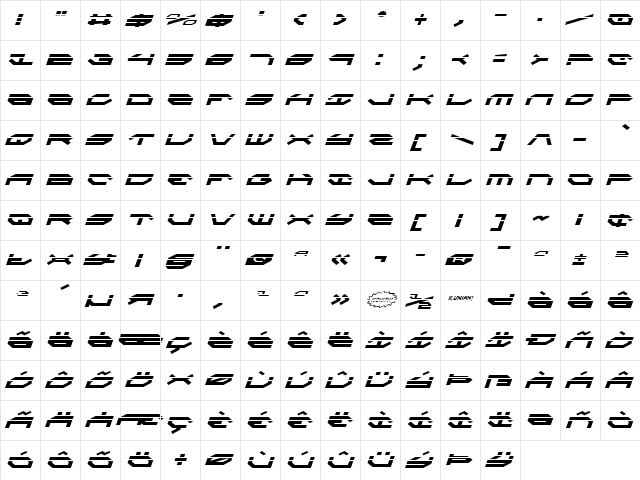
Taskforce Laser Italic Italic
Design Context for Taskforce Laser Italic Typeface
Taskforce Laser Italic brings high-energy athletic personality to the page — its confident, muscular forms are built for impact. Its italic angle brings a sense of urgency and motion to the letterforms.
A natural choice for gym brands, fantasy sports, jersey lettering, and action-driven headlines.
Pro Tip: Use Taskforce Laser Italic in all-caps headlines where its athletic energy can fully express itself. Pair with a solid, simple sans for supporting text.